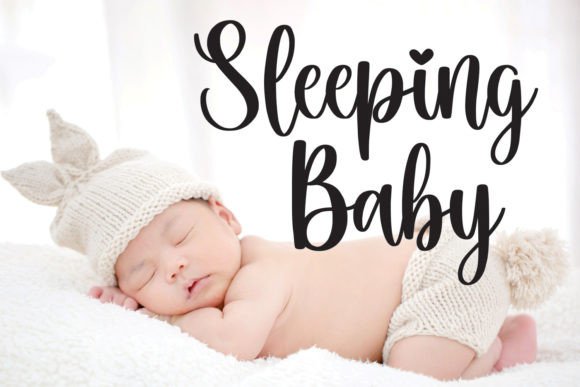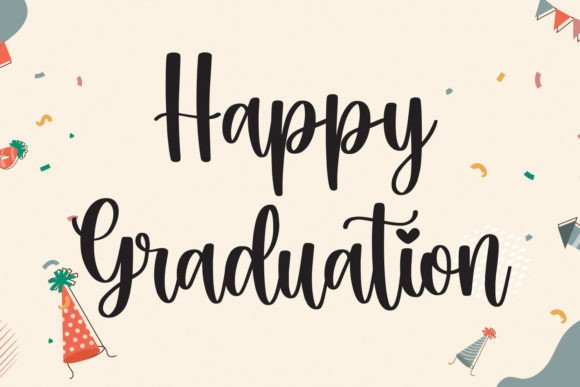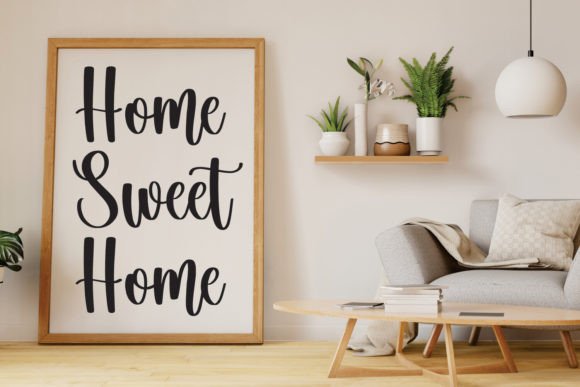
Barbie Font
Barbie is a script handwritten style that embodies a perfect harmony between sophistication and youthful exuberance. It embodies elegance, making it an ideal choice for projects seeking to infuse a touch of whimsical beauty and feminine allure into their designs.